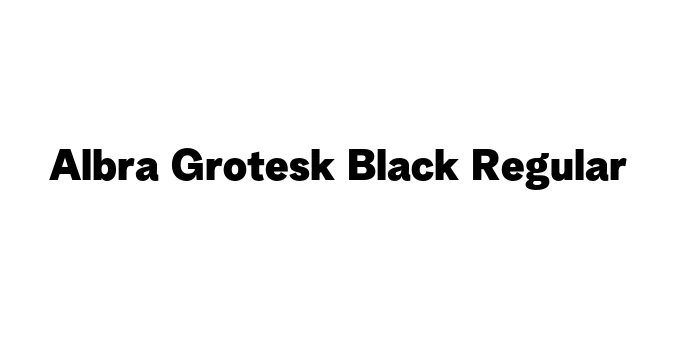
Albra Grotesk Black Regular
Designed by BumBumType
Albra Grotesk Black Regular is a sophisticated sans-serif typeface developed by the design studio BumBumType. As a core component of the extensive Albra collection, this font represents a modern interpretation of the classic grotesque style, blending 20th-century functionalism with contemporary high-fashion aesthetics. The Black weight is particularly distinguished by its substantial presence and refined curves, making it a standout choice for designers seeking a balance between raw power and elegant detail.
Technical precision is at the heart of Albra Grotesk Black, featuring wide character widths and generous apertures that maintain legibility despite its heavy stroke weight. It is engineered to perform exceptionally well in display environments, such as large-scale editorial layouts, luxury packaging, and digital interfaces. The typeface's versatility allows it to transition seamlessly from high-end print media to modern web environments, providing a timeless yet fresh typographic voice.
Albra Grotesk Black Regular Best Uses
High-impact headlines in fashion and lifestyle magazines.
Powerful logo designs for premium and contemporary brands.
Bold hero sections and navigation elements for modern websites.
Luxury product labeling that requires a strong visual identity.